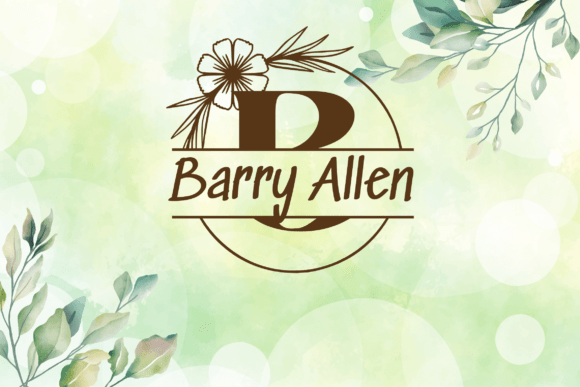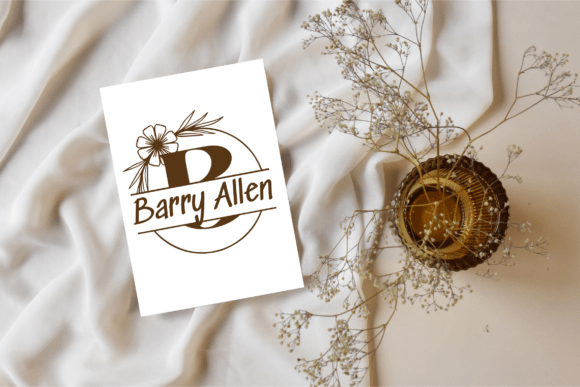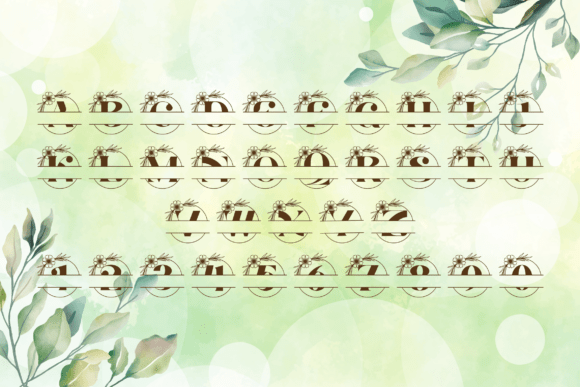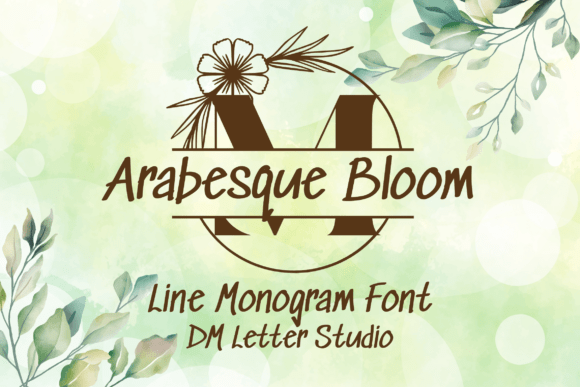
Arabesque Bloom Split Monogram Font: Elevate Your Designs with Elegance and Sophistication
Introducing the Arabesque Bloom Split Monogram Font, a stunning addition to the world of typography. This beautifully intricate monogram font seamlessly blends classical elegance with blooming floral artistry, making it perfect for high-end designs. Each uppercase letter is meticulously adorned with delicately woven arabesque and botanical motifs, evoking a sense of romance and luxury.
Unveiling the Features of Arabesque Bloom Monogram Font
The Arabesque Bloom Monogram Font boasts an array of impressive features that make it an ideal choice for designers and crafters. Some of its key features include:
- Floral-Ornate Capitals: Uppercase serif letters infused with detailed arabesque and floral flourishes, creating a truly regal appearance.
- Artistic Elegance: Inspired by vintage filigree and botanical illustrations, this font exudes a timeless appeal that will elevate any design.
- Monogram Ready: Crafted specifically for use as initials, wedding logos, or decorative nameplates, making it perfect for personalized creations.
Ideal Applications for Arabesque Bloom Monogram Font
This versatile font is suitable for a wide range of applications, including:
- Wedding Monograms: Add a touch of elegance to wedding stationery, invitations, and ceremony decor with a custom monogram.
- Luxury Branding: Elevate your brand’s visual identity with a sophisticated, high-end monogram that exudes refinement.
- Personalized Gifts: Create bespoke gifts, such as engraved jewelry, candles, or linens, with a beautifully designed monogram.
- Boutique Packaging: Stand out in the world of retail with custom packaging that features a unique, elegant monogram.
- Heritage Logos: Pay homage to your heritage or cultural roots with a monogram that incorporates traditional design elements.
- Stationery: Add a touch of sophistication to your personal or business stationery with a custom monogram.
Why Choose Arabesque Bloom Monogram Font?
With the Arabesque Bloom Monogram Font, you can:
- Add a Touch of Romance: Infuse your designs with a sense of elegance and sophistication.
- Elevate Your Brand: Stand out in a crowded market with a unique, high-end visual identity.
- Create Timeless Designs: Craft designs that will remain relevant for years to come, thanks to the font’s classic appeal.
Tips for Using Arabesque Bloom Monogram Font
To get the most out of this beautiful font, consider the following tips:
- Pair with Neutral Colors: Balance the font’s ornate details with neutral colors to avoid overwhelming the design.
- Experiment with Sizes: Play with different font sizes to create visual interest and hierarchy in your design.
- Add Texture and Patterns: Combine the font with textures and patterns to add depth and visual interest.
In conclusion, the Arabesque Bloom Split Monogram Font is an exquisite addition to any designer’s toolkit. Its intricate details, elegant appearance, and versatility make it perfect for a wide range of applications. Whether you’re creating wedding stationery, luxury branding, or personalized gifts, this font is sure to elevate your designs and leave a lasting impression.